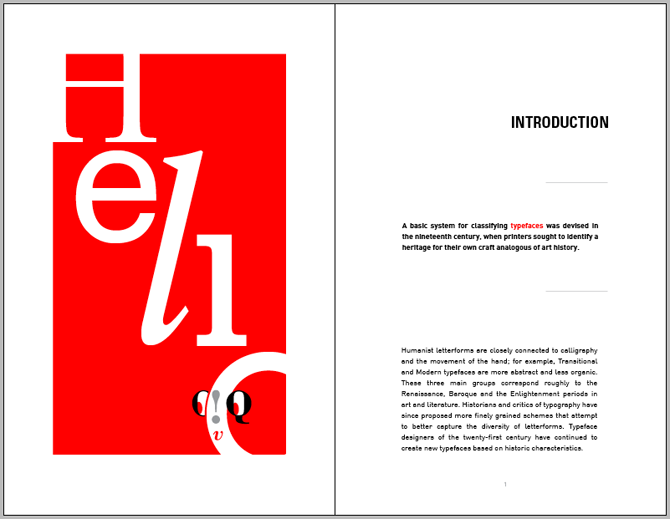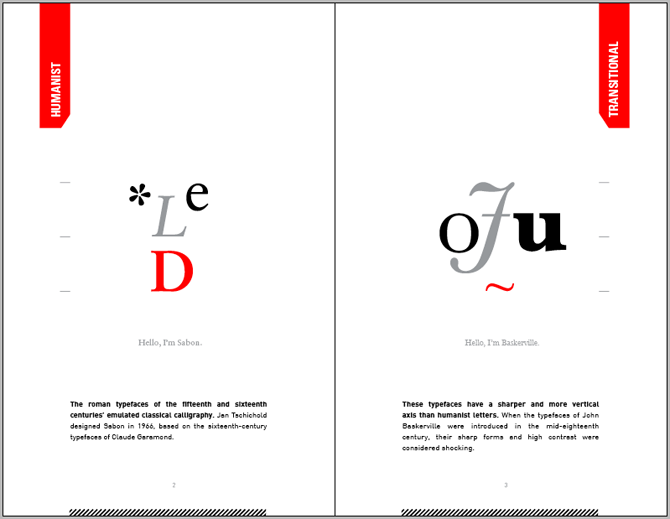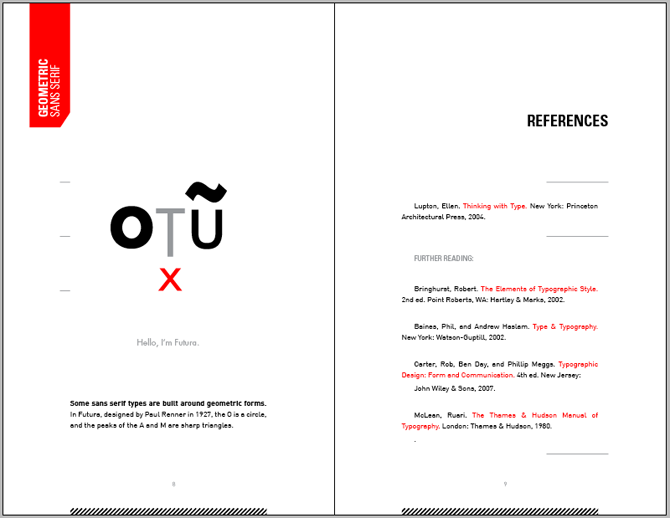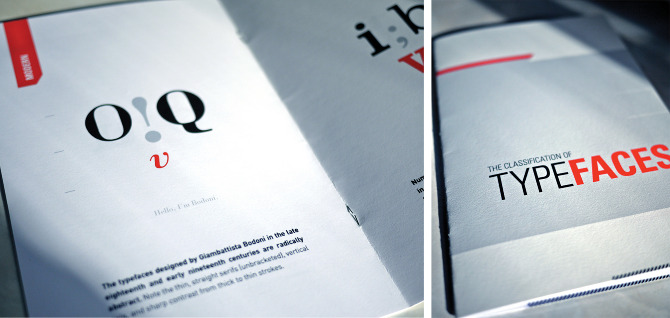
TYPEFACE CLASSIFICATION
A typeface classification book that uses an assortment of simple 'faces' created by combining letter forms, punctuation and glyphs to represent each typeface classification. A total of 7 type 'faces' were created to represent the 7 different typeface classifications: humanist, transitional, modern, slab serif, humanist sans serif, transitional sans serif, and geometric sans serif.